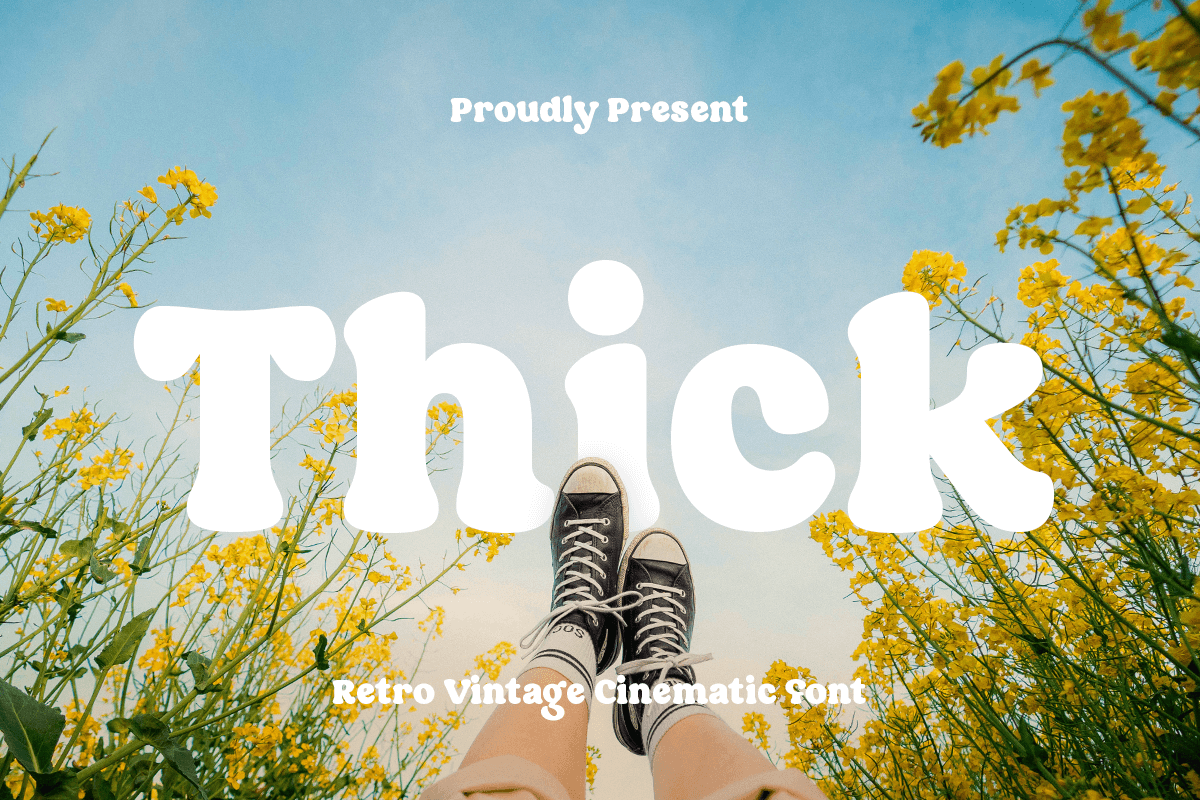
Thick
-Retro Vintage Cinematic FontThick - Retro Vintage Cinematic Font
Thick is a bold retro vintage font crafted for impactful headlines and nostalgic visuals. Its chunky letterforms, vintage charm, and cinematic flair make it ideal for movie posters, product labels, event branding, and editorial designs. Whether you're channeling the golden era of film or bringing retro energy to a modern layout, Thick font delivers unmistakable presence.
Inspired by classic cinema and bold display typography from the mid-20th century, Thick font brings timeless strength and character to your work. Its retro curves and heavy stance are made to turn heads and leave a lasting impression in both print and digital formats.
Let your designs speak loud and proud with Thick—a font that combines nostalgia, boldness, and storytelling in every letter.
Thick Retro Vintage Cinematic Font Features:
Bold Retro Display Style
Perfect for Posters, Headlines, Labels & Branding